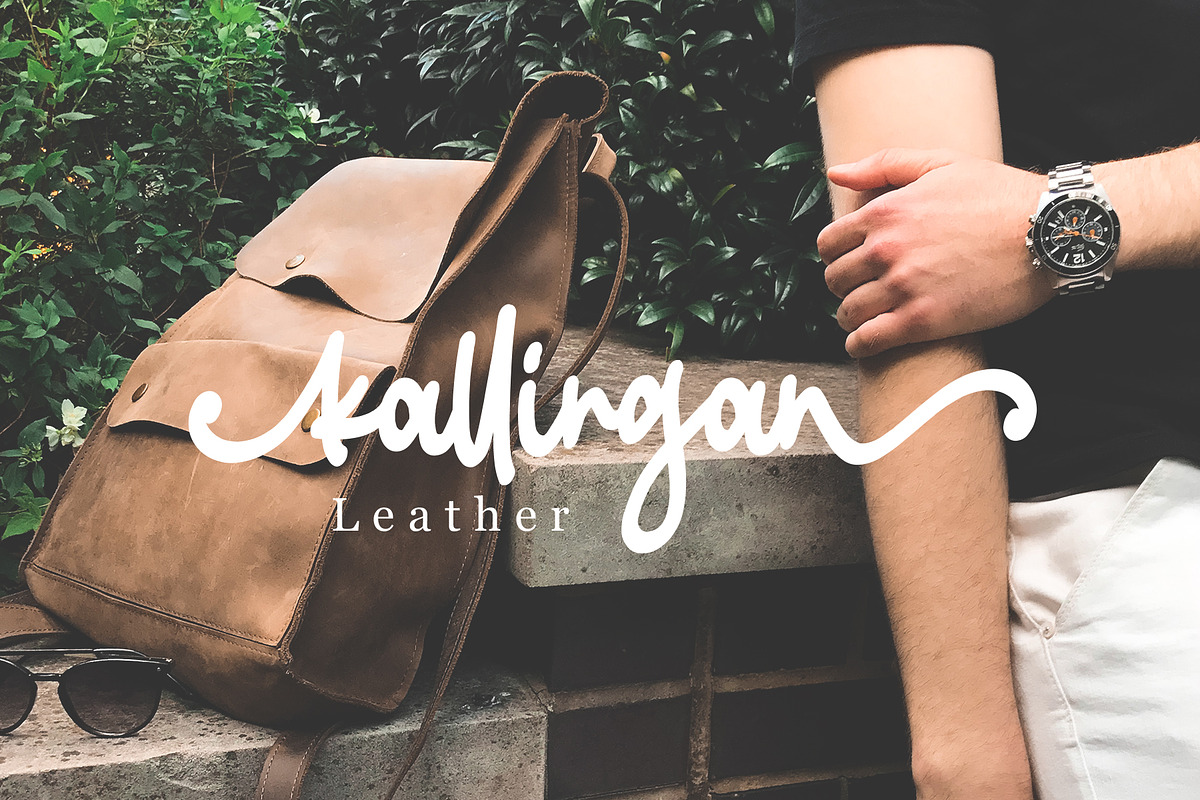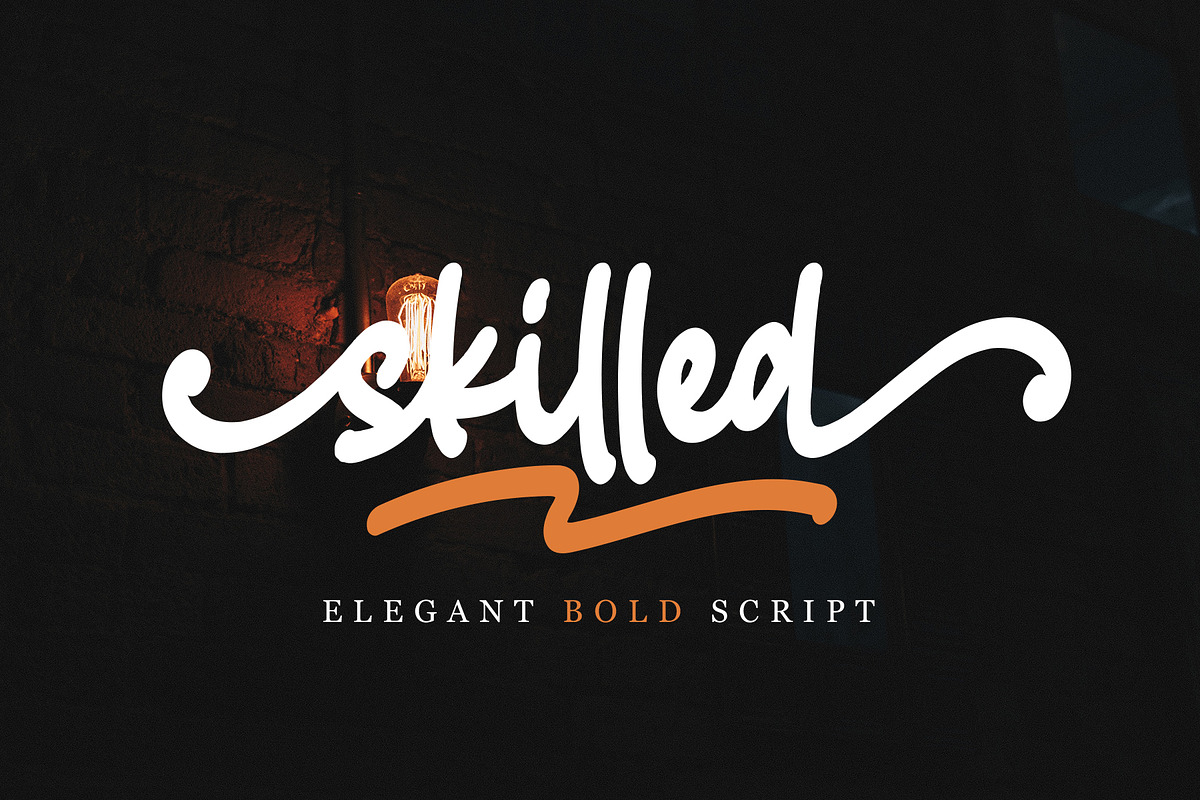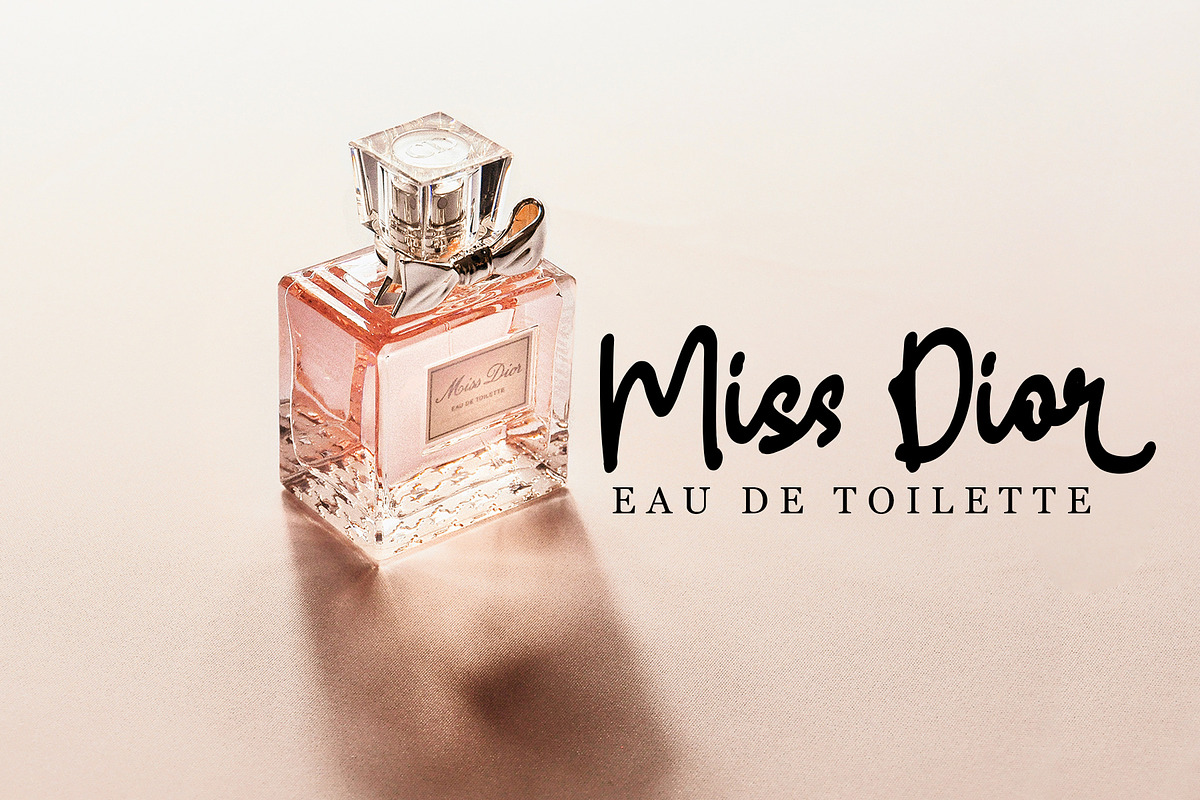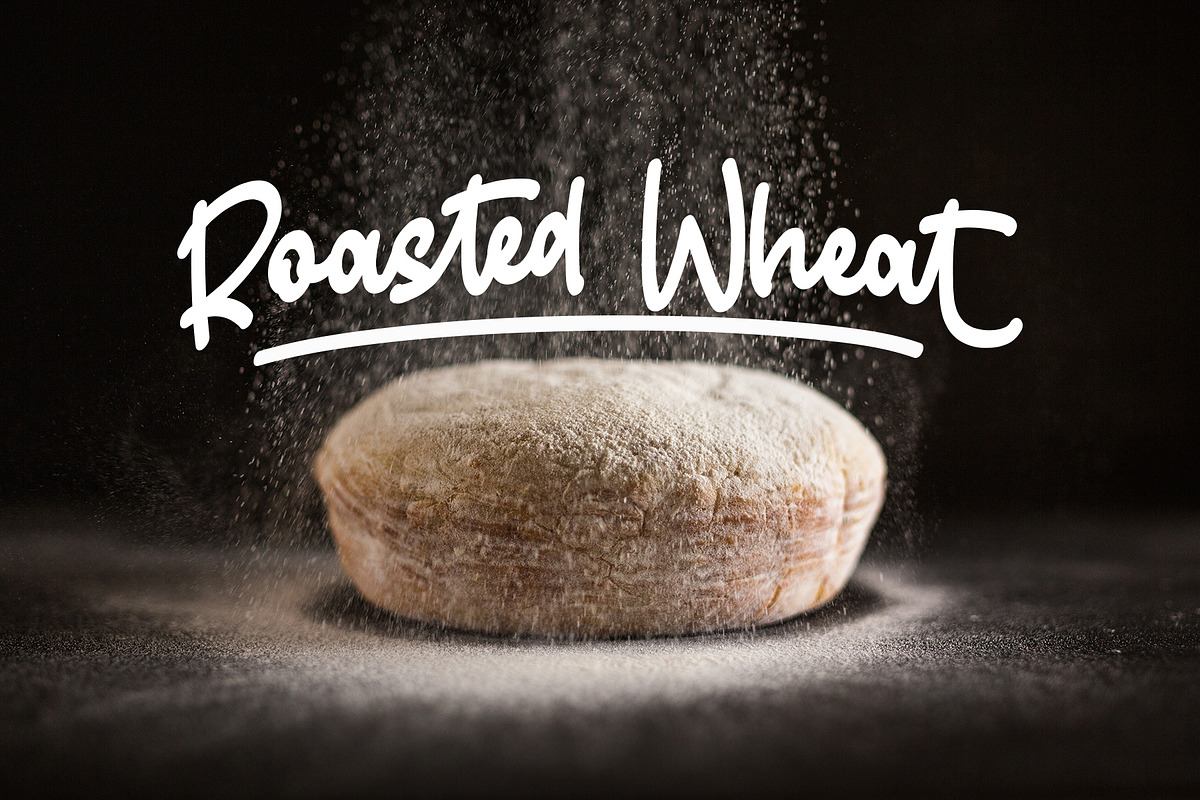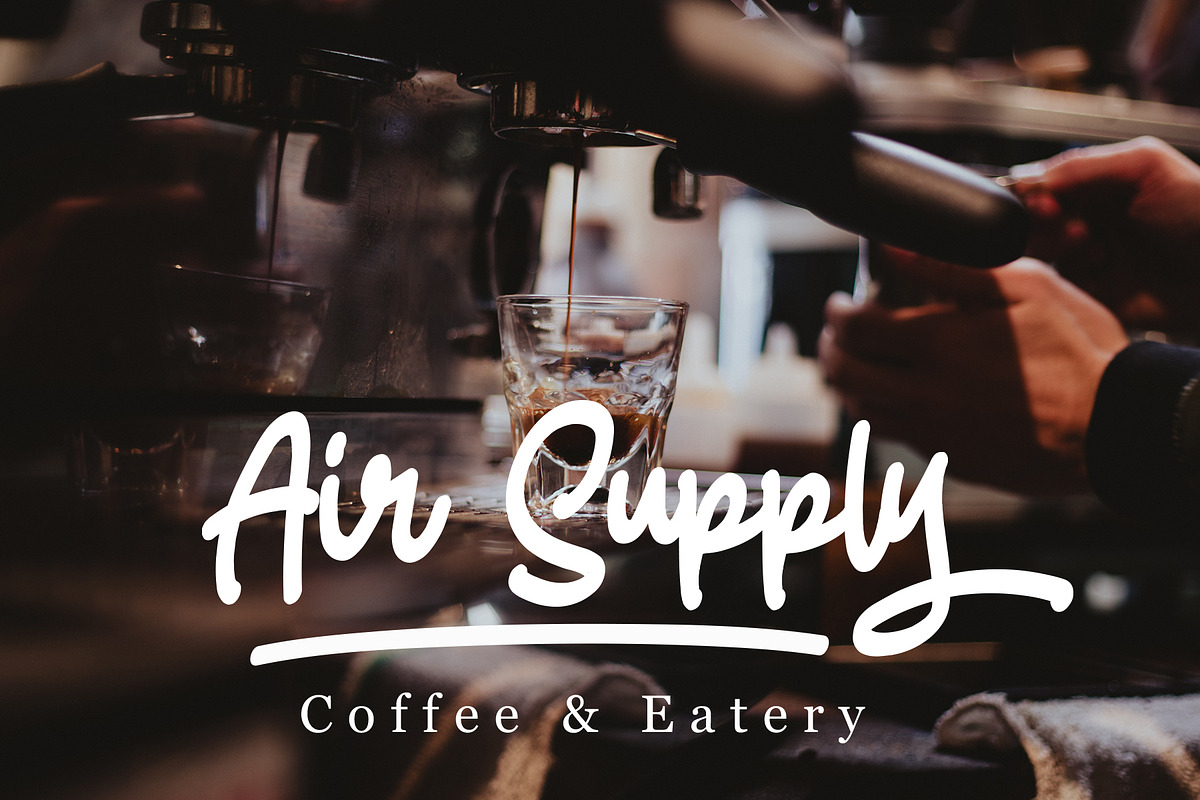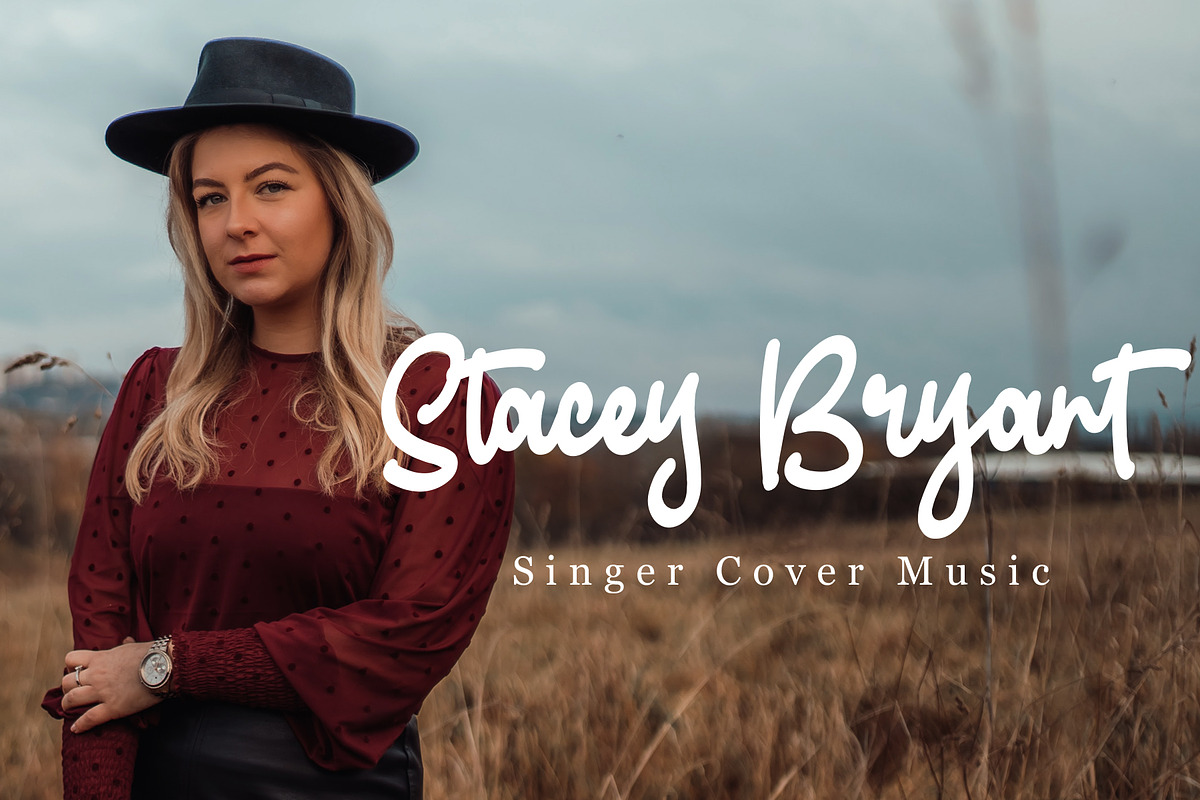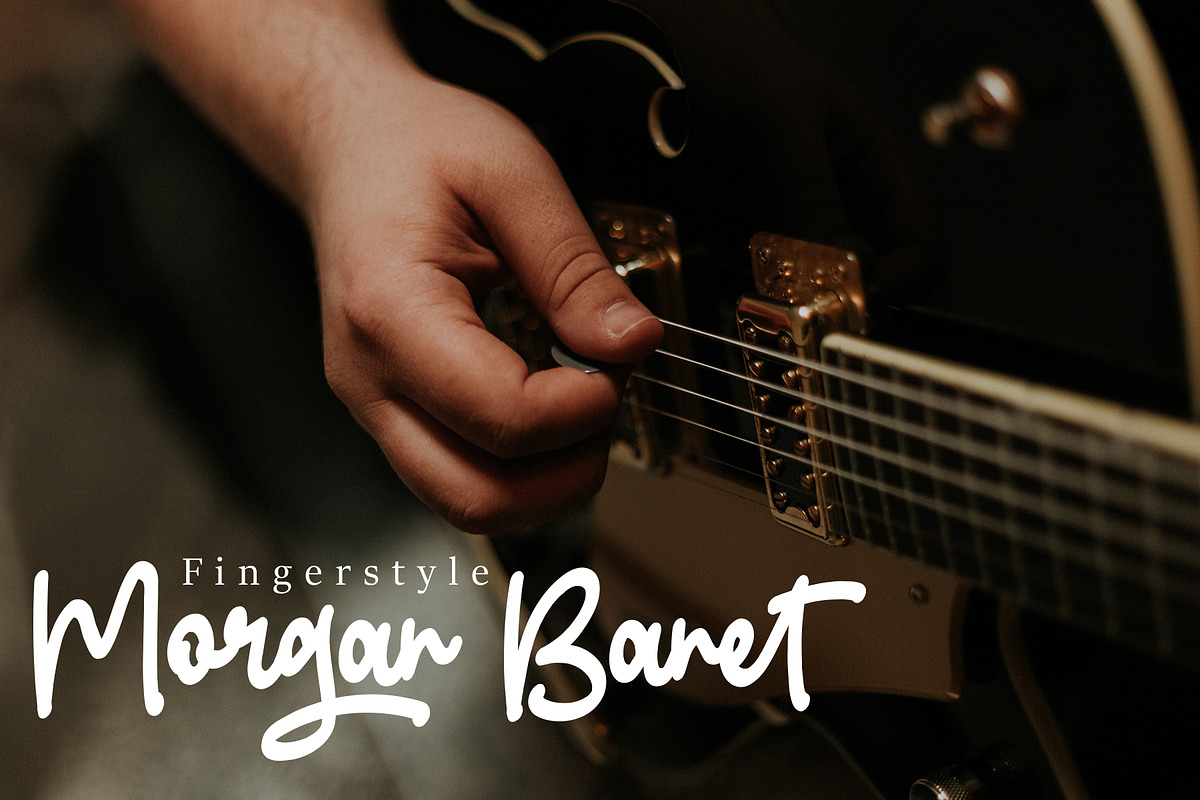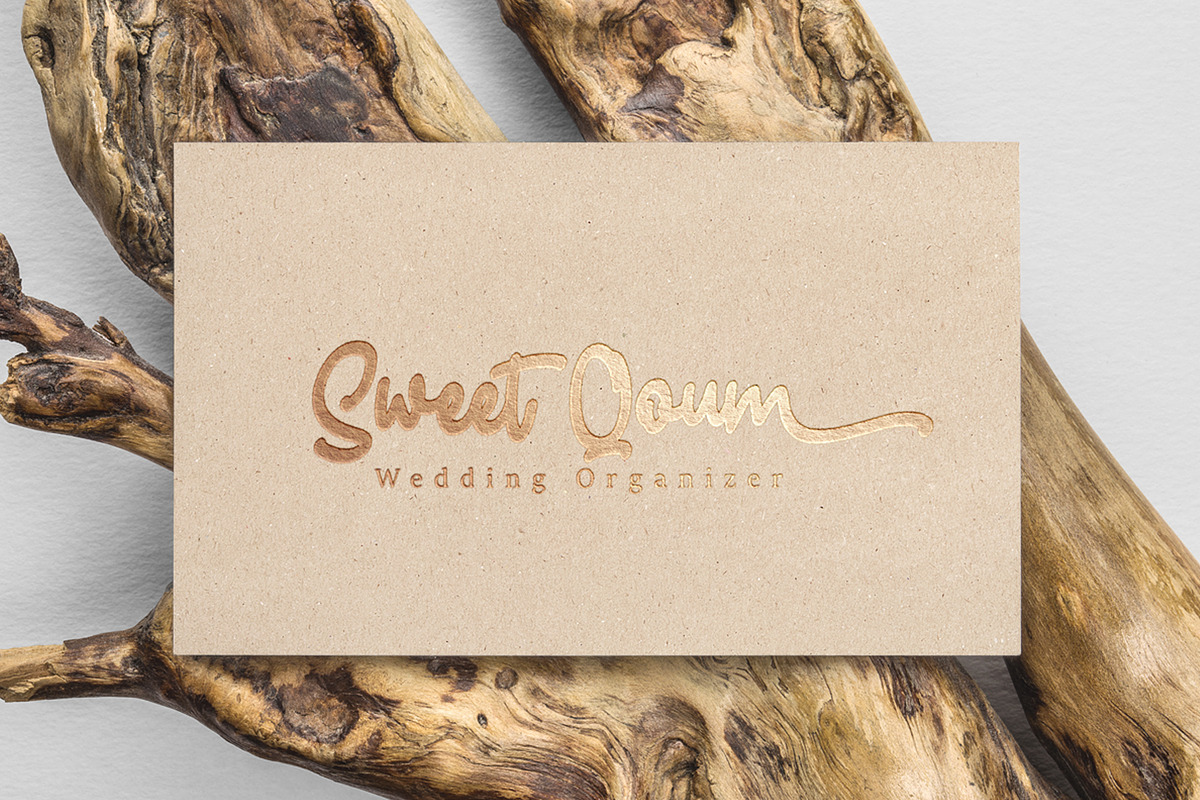
Skilled | Elegant Fonts
Skilled Numeral And Punctuation
Skilled Stylistic Alternates
Skilled Stylistic Alternates 2
Skilled Contextual Alternates
- Skilled Script
Why Skilled | Elegant Fonts is worth a look
Skilled | Elegant Fonts by Crump Hand fits naturally into Branding, posters, packaging, typography.